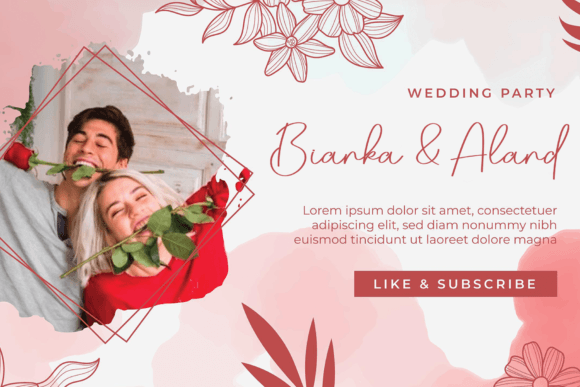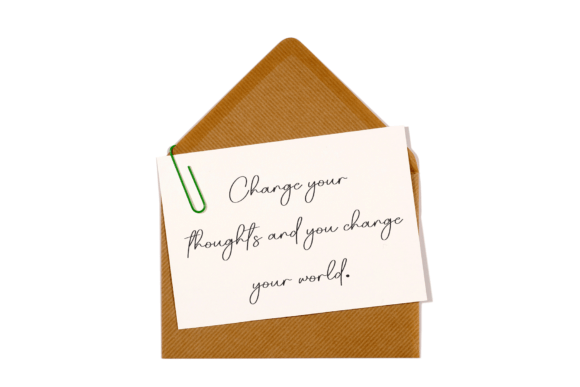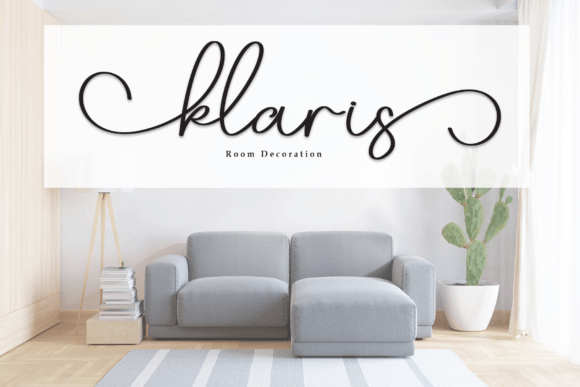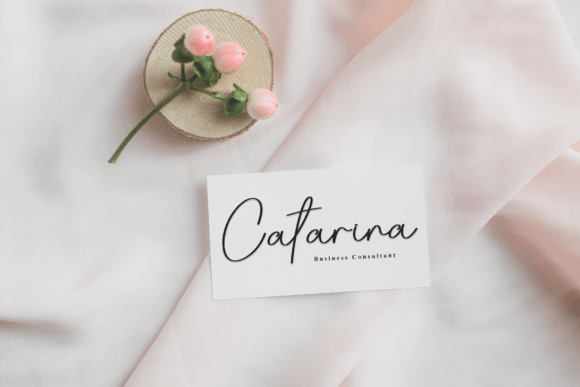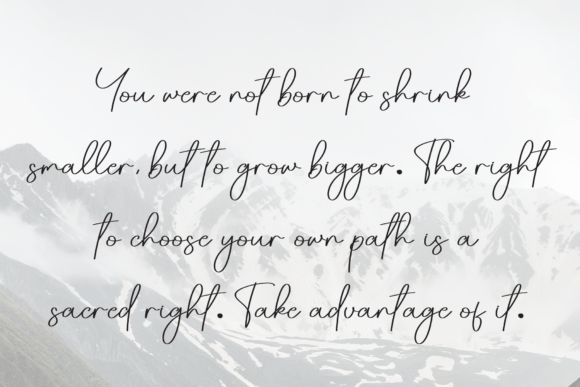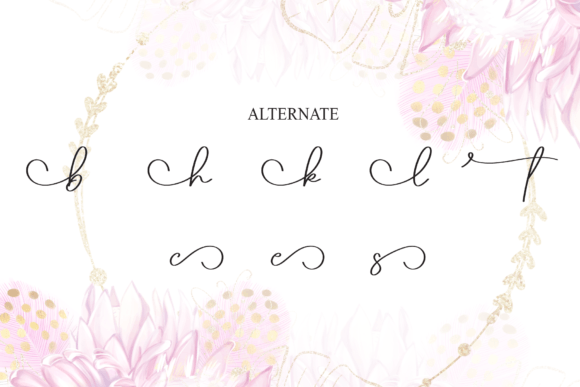
Introduction to Bouquets Font
There’s nothing quite like the rush of finding the perfect design element to elevate your creative project. For many designers, this moment is a game-changer, setting the tone for a masterpiece that showcases their skill and style. If you’re reading this, chances are you’re on the hunt for that special something to take your designs to the next level. Look no further than the Bouquets Font, a stunning handwritten font that’s about to become your new go-to design resource.
With its elegant, high-quality design, Bouquets Font is the perfect addition to any creative project. Its classy calligraphic influences are perfectly balanced with a modern, fresh feel, making it a versatile choice for designers of all levels. Whether you’re working on a wedding invitation, a brand logo, or a social media graphic, Bouquets Font is sure to bring a touch of sophistication and elegance to your design.
Key Features of Bouquets Font
- High-quality, hand-drawn design ideal for creative projects and unique designs
- Comes with a transparent background, allowing for seamless integration into any design
- Unique characteristics include elegant, cursive script and ornate details, perfect for adding a touch of sophistication to any design
- Perfect for wedding invitations, greeting cards, and other creative projects requiring a delicate, hand-crafted look
Honest Review: Bouquets Font
As a designer, I’m always on the lookout for high-quality design resources to elevate my creative projects. Recently, I stumbled upon the Bouquets Font, and I’m excited to share my honest review.
- The Bouquets Font is incredibly versatile and can be used for a wide range of designs, from wedding invitations to floral-inspired artwork.
- The transparent background allows for seamless integration with other design elements, giving me more creative freedom.
- The font’s complexity can make it difficult to pair with other fonts, requiring some experimentation to find the perfect match.
Overall, I’m impressed with the Bouquets Font’s beauty and versatility. While it may have some limitations, it’s an excellent resource for designers working on creative projects that require a touch of elegance and sophistication.
Bouquets Font
Tips for Getting the Most Out of Bouquets Font
Use Bouquets Font to add a touch of elegance to your designs. Experiment with different font sizes and styles to create visually appealing combinations. You can also use it in conjunction with other design elements to create a cohesive look.
Bouquets Font is perfect for wedding invitations, floral arrangements, and other designs that feature flowers or botanicals. It’s also great for adding a touch of whimsy to your designs.